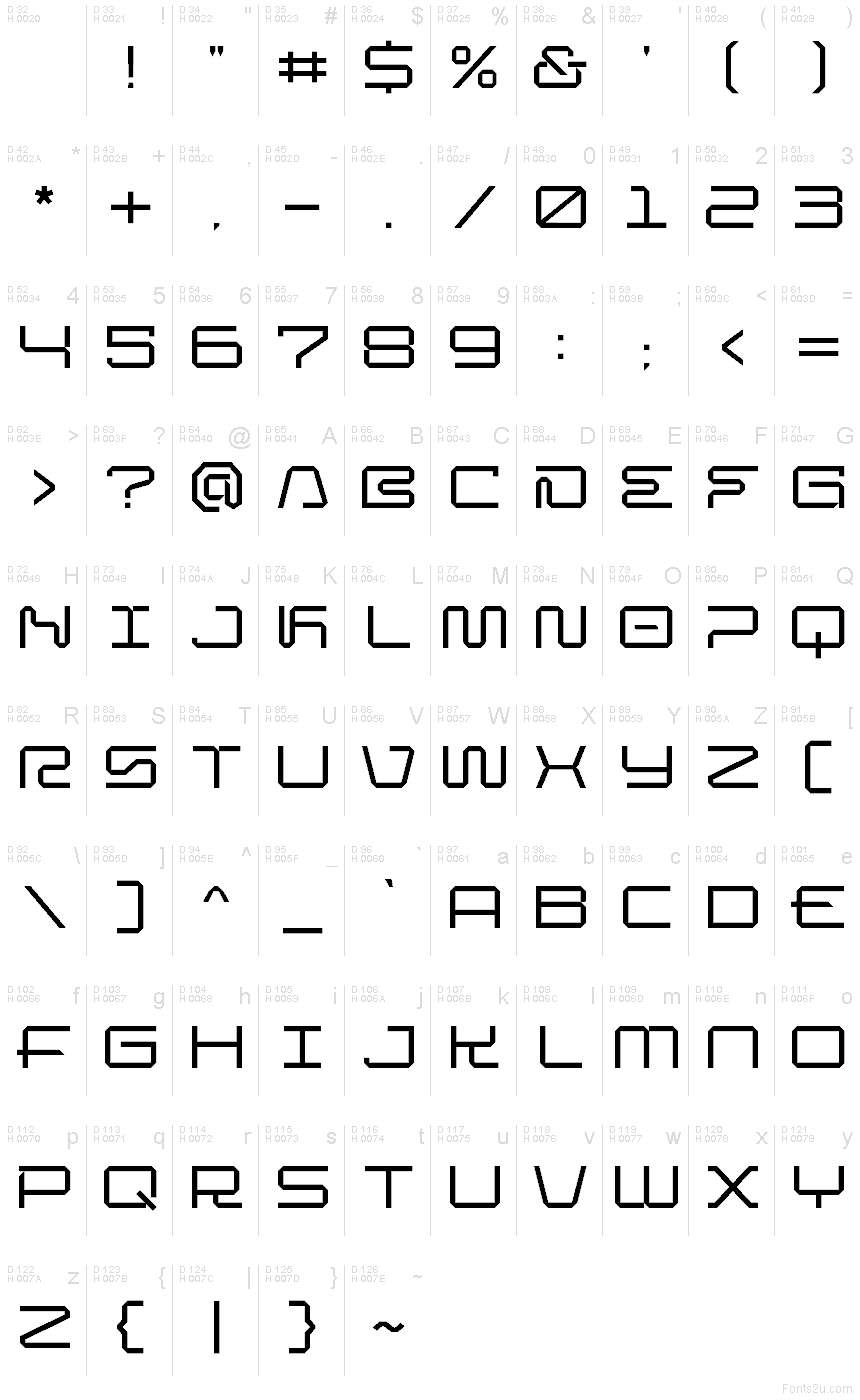
Venora
Venora font by Namara Creative is a free techno display font. Built from crisp monoline strokes and squared, rounded bowls, it has that clean, circuitry feel—sharp angles snap into smooth corners like machined parts. The rhythm is tight and modular, so lines read like neon traces on a motherboard, delivering a cool, futuristic presence without visual noise.
Using Venora, headlines punch through on sci‑fi posters, esports branding, app splash screens, gadget packaging, event flyers, and electronic album covers. This free font holds together at large sizes, and a touch of extra tracking lets the geometry breathe. Pair it with a neutral grotesk for body copy to keep the high-tech vibe grounded and readable.